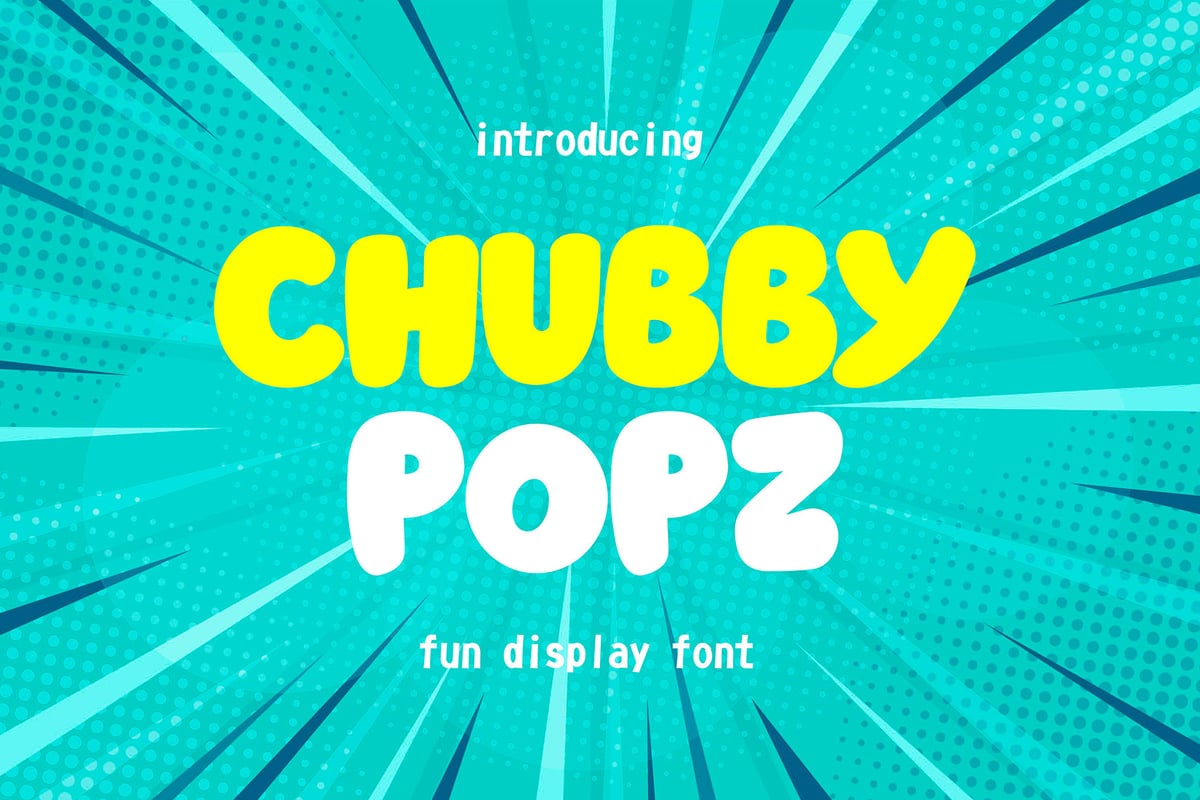
Chubby popz
Chubby Popz is a fun and bold cartoon display font designed to bring energy, joy, and personality into your creative projects. Inspired by playful comic lettering, pop art visuals, and modern kids-friendly typography, this font features thick rounded shapes that create a soft, cheerful, and approachable look. The main strength of Chubby Popz lies in its chunky and bubbly letterforms. Each character is carefully crafted with smooth curves and consistent stroke weight, giving the font a friendly